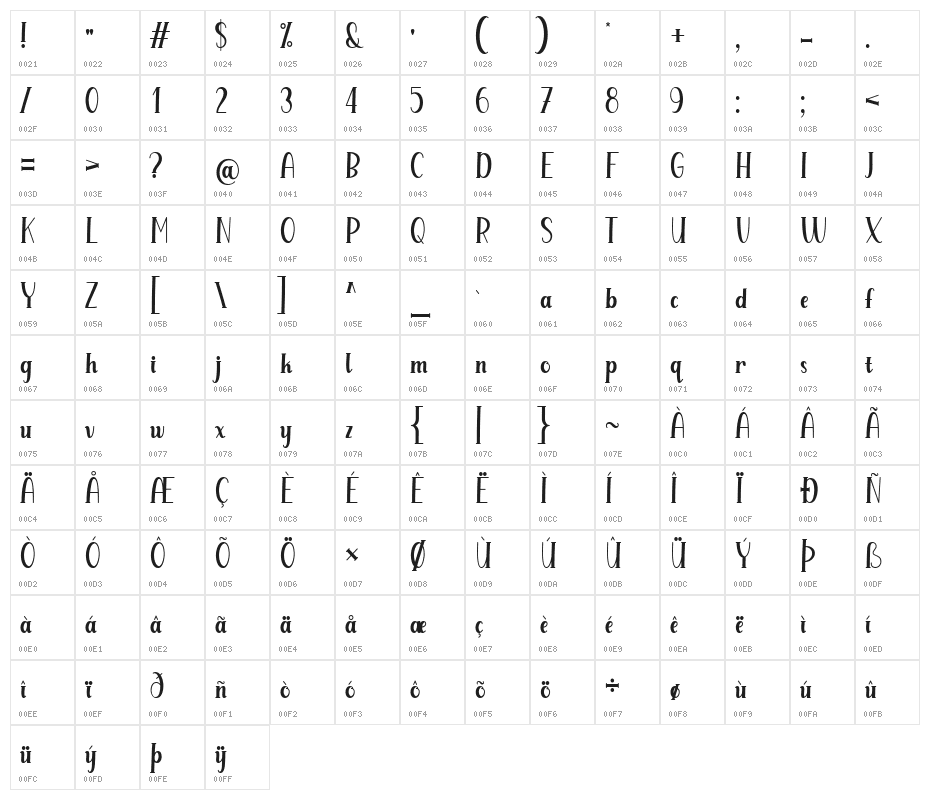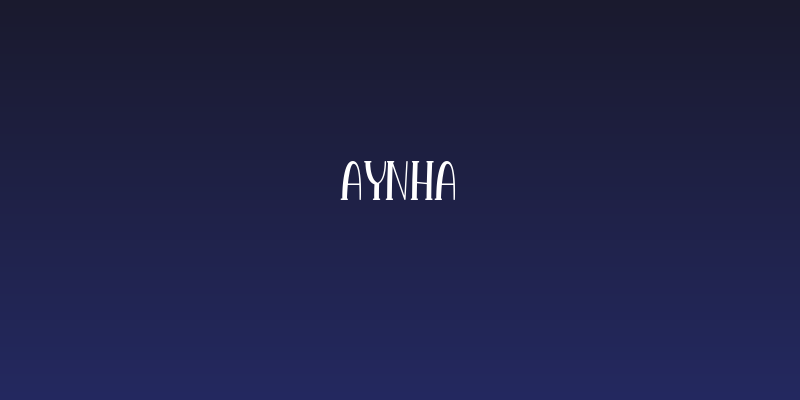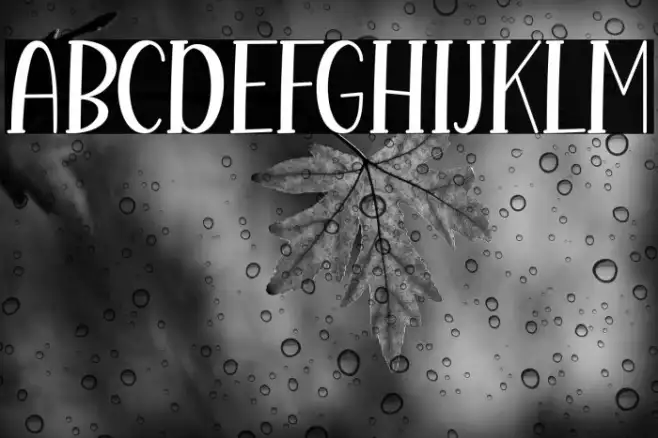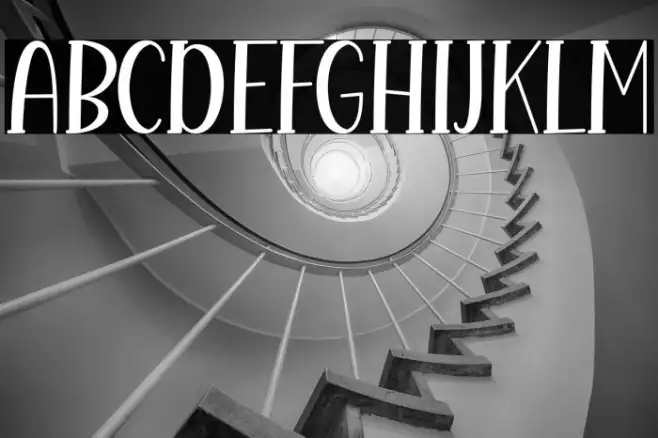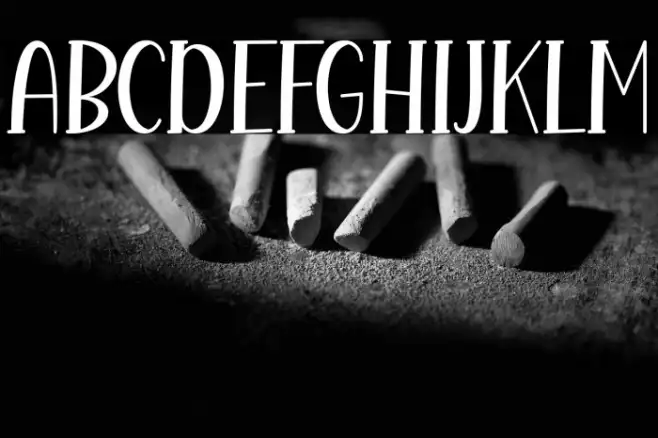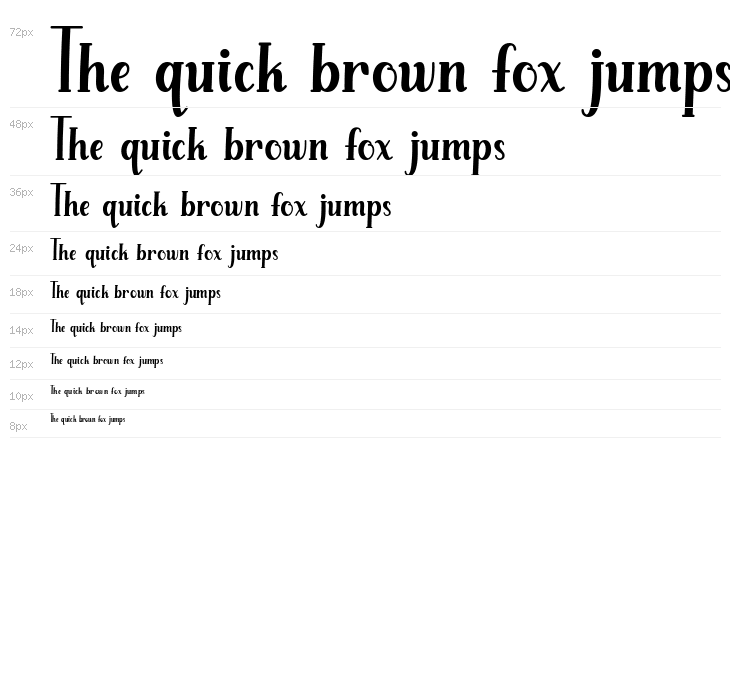
Aynha Font
Aynha Description
This font features a unique blend of elegance and playfulness, characterized by its tall, narrow letterforms and subtle curves. The uppercase letters exhibit a graceful, elongated style with slight variations in stroke width, adding a touch of sophistication. The lowercase letters maintain a consistent flow, with rounded edges that soften the overall appearance. The numerals are distinct and easy to read, complementing the font's aesthetic. Special characters are thoughtfully designed, ensuring versatility across various applications. This font's distinctive style makes it suitable for creative and artistic projects.
| Use Case | Headlines, Logos, Artistic projects |
| Proposed Projects | Ideal for branding, invitations, posters, and artistic projects requiring a touch of elegance. |